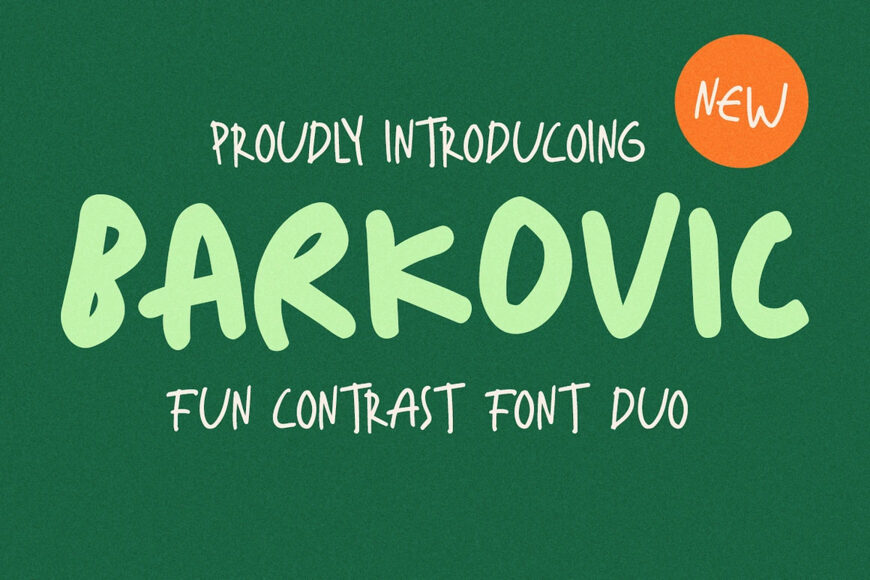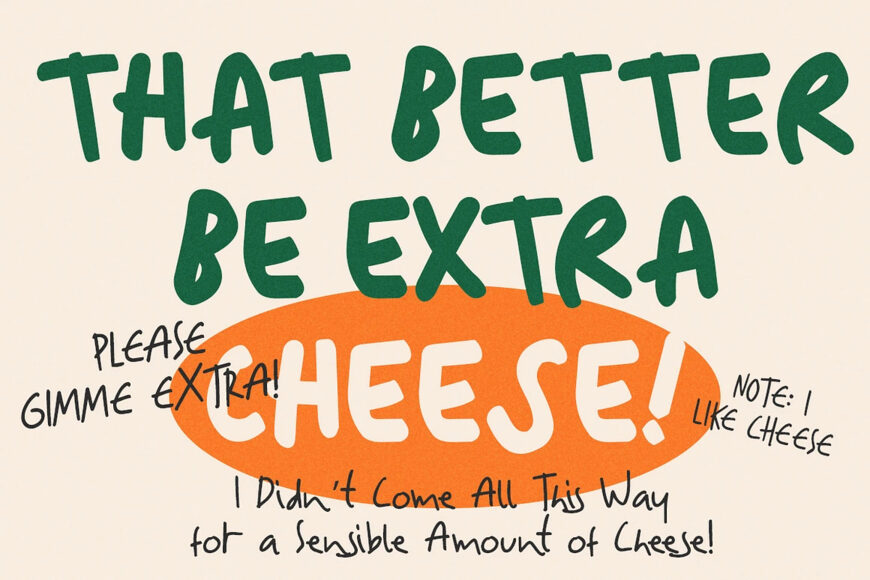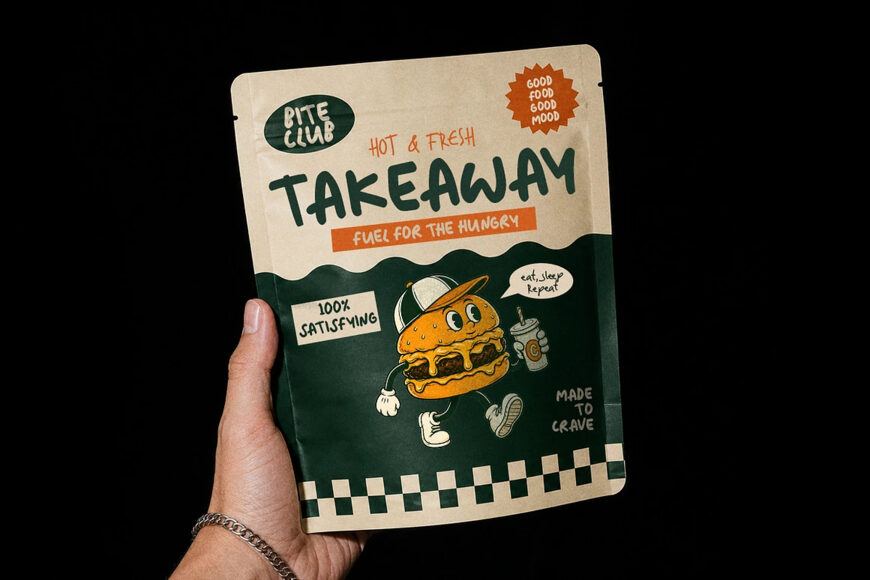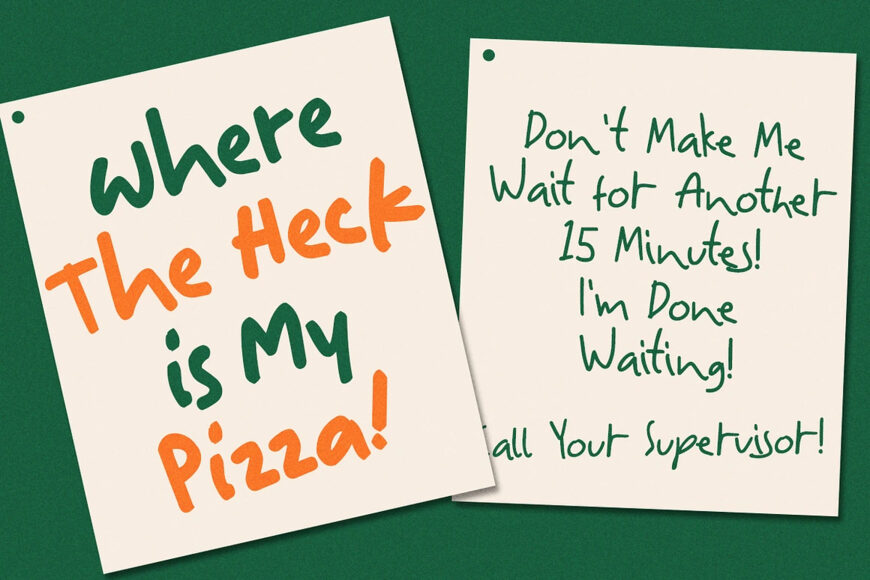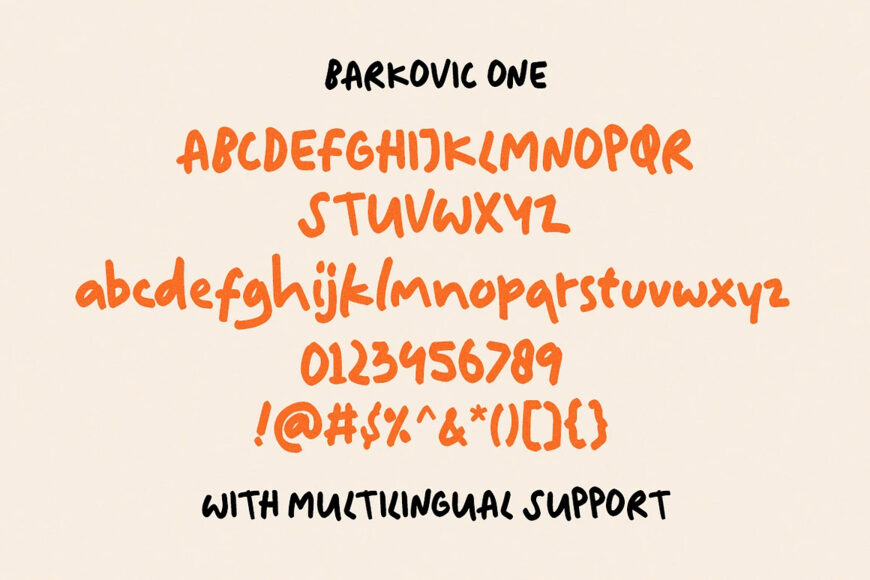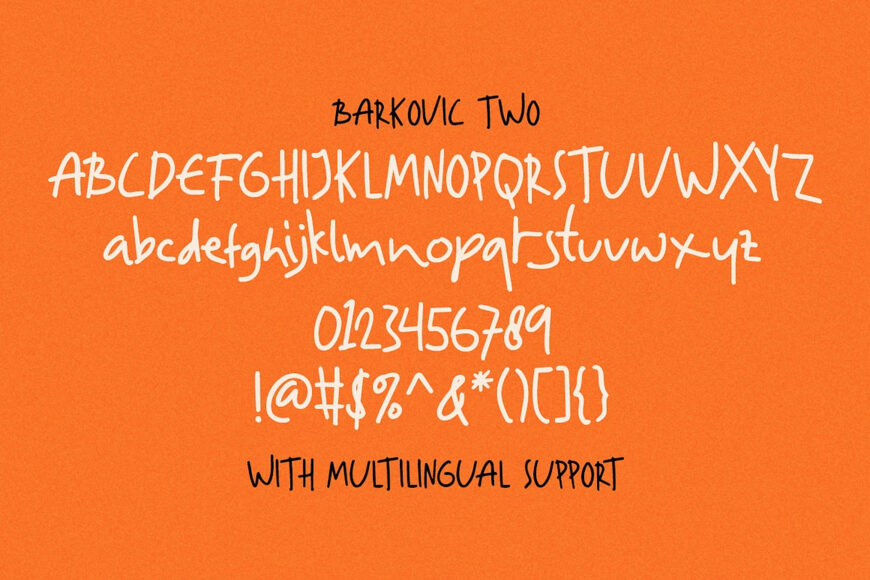
Friendly, relaxed, and wonderfully imperfect, Barkovic feels like handwriting that comes naturally. This playful font duo pairs a casual handwritten style with a bold marker-inspired companion, giving you an effortless way to create eye-catching titles alongside lighter handwritten accents.